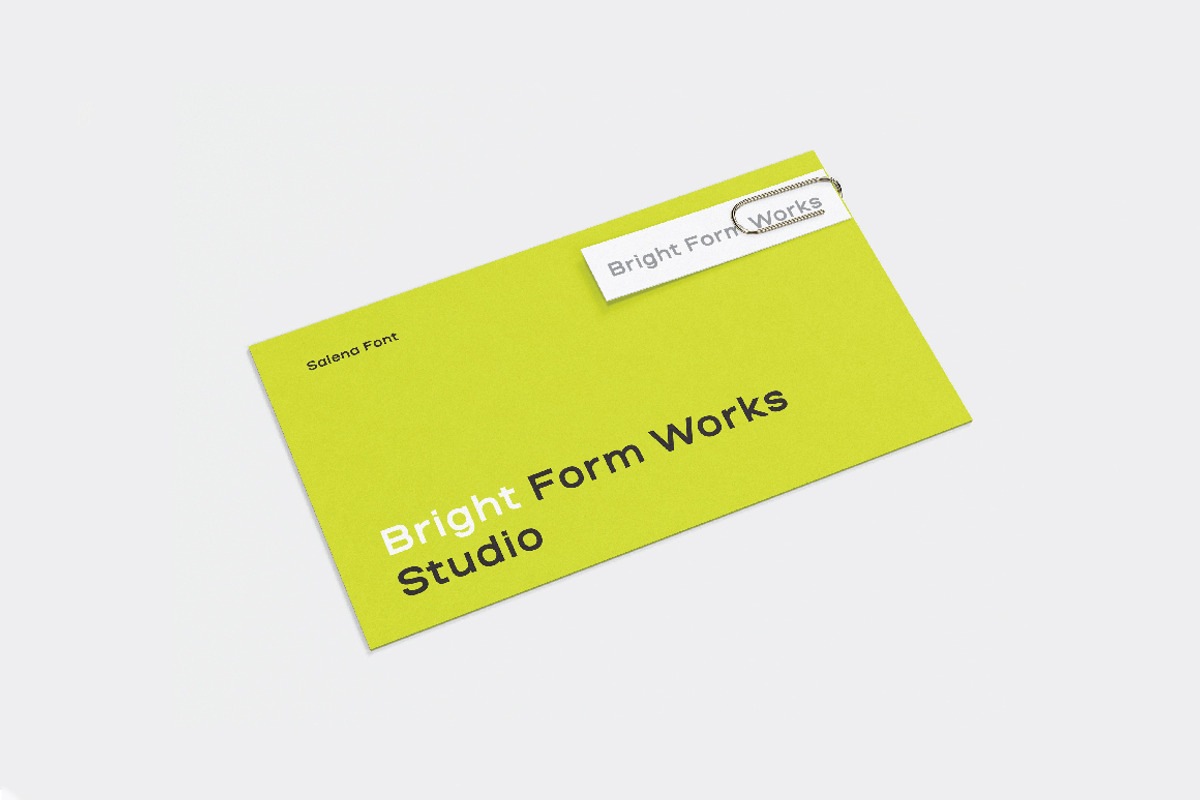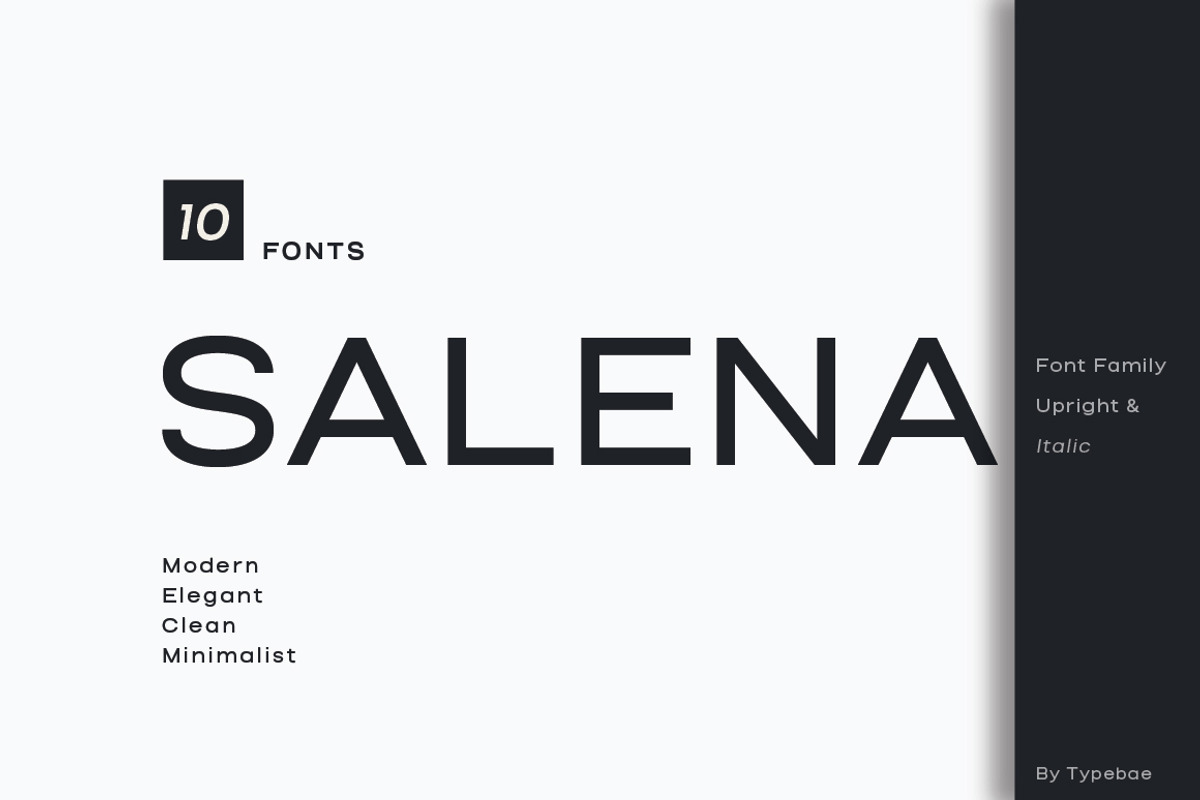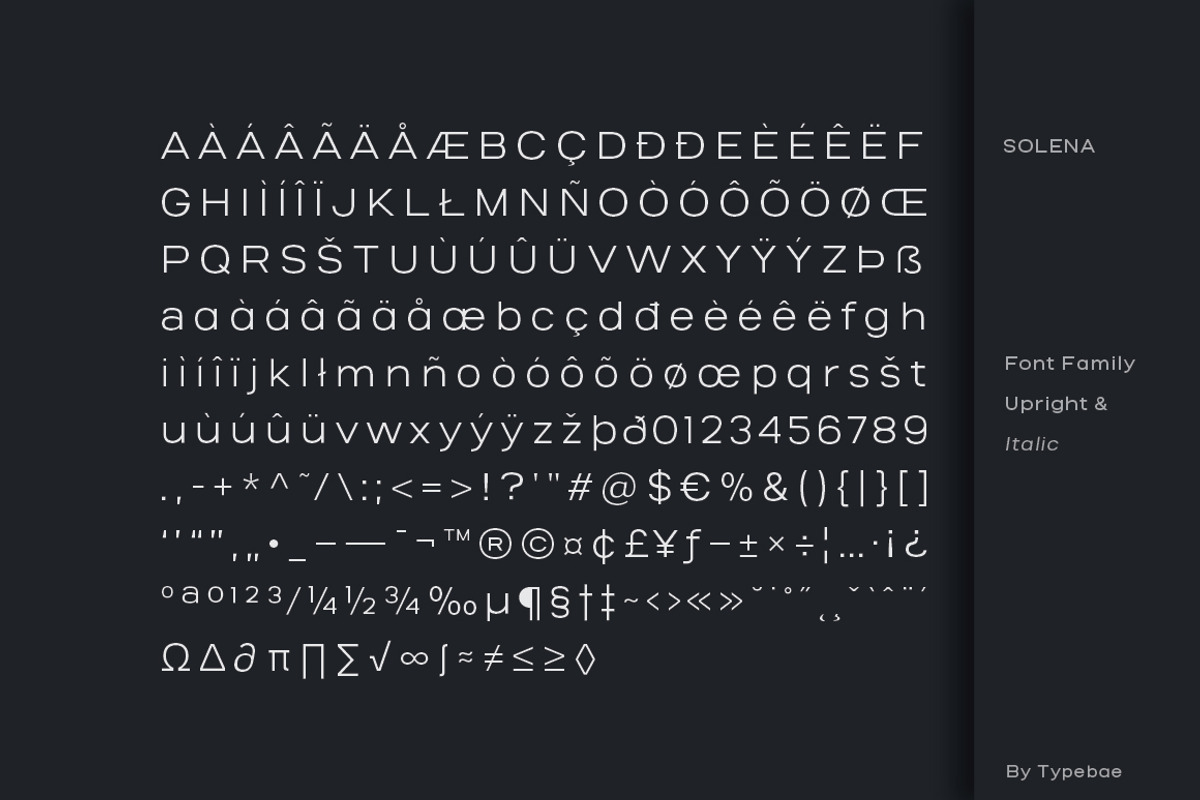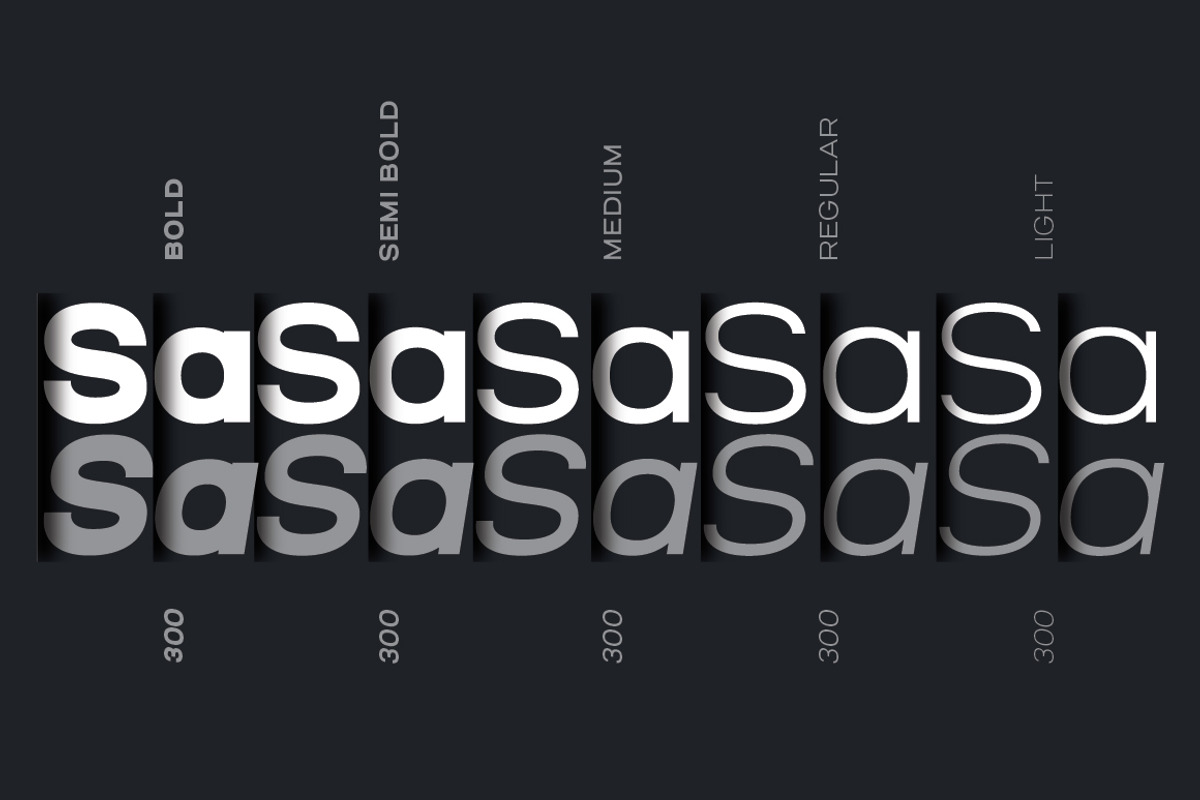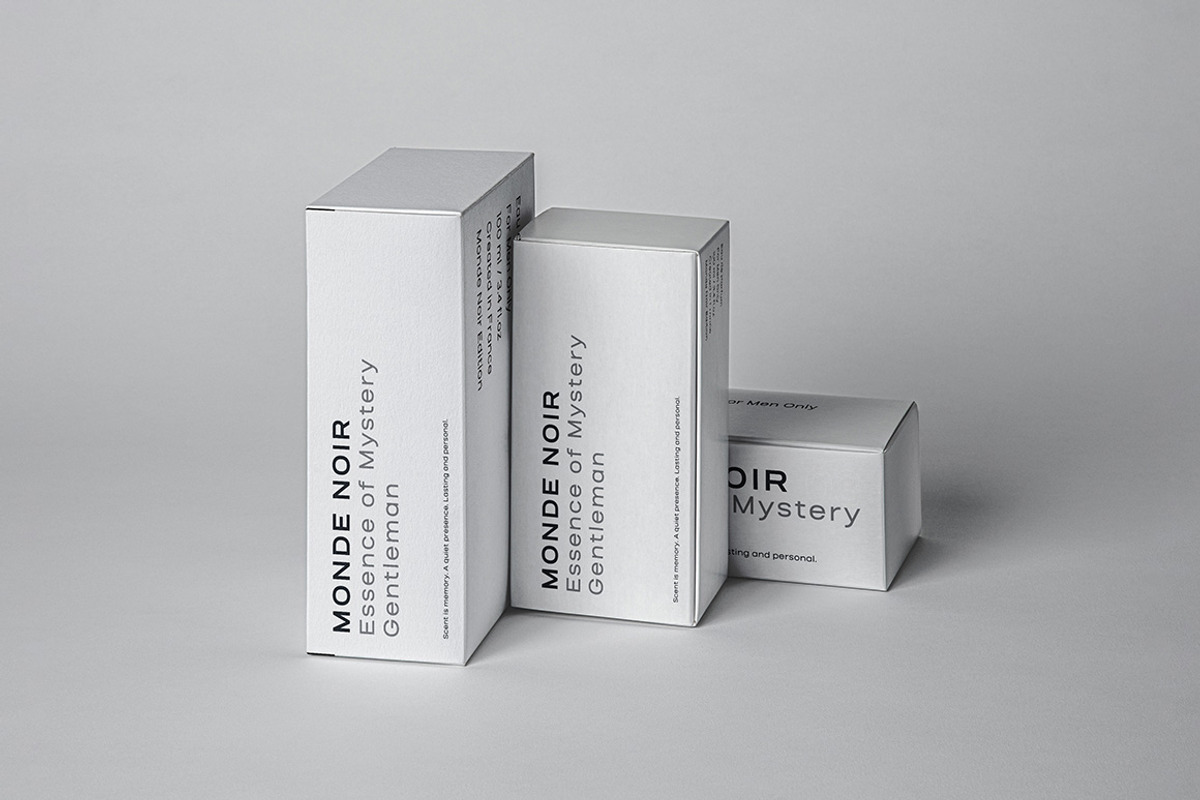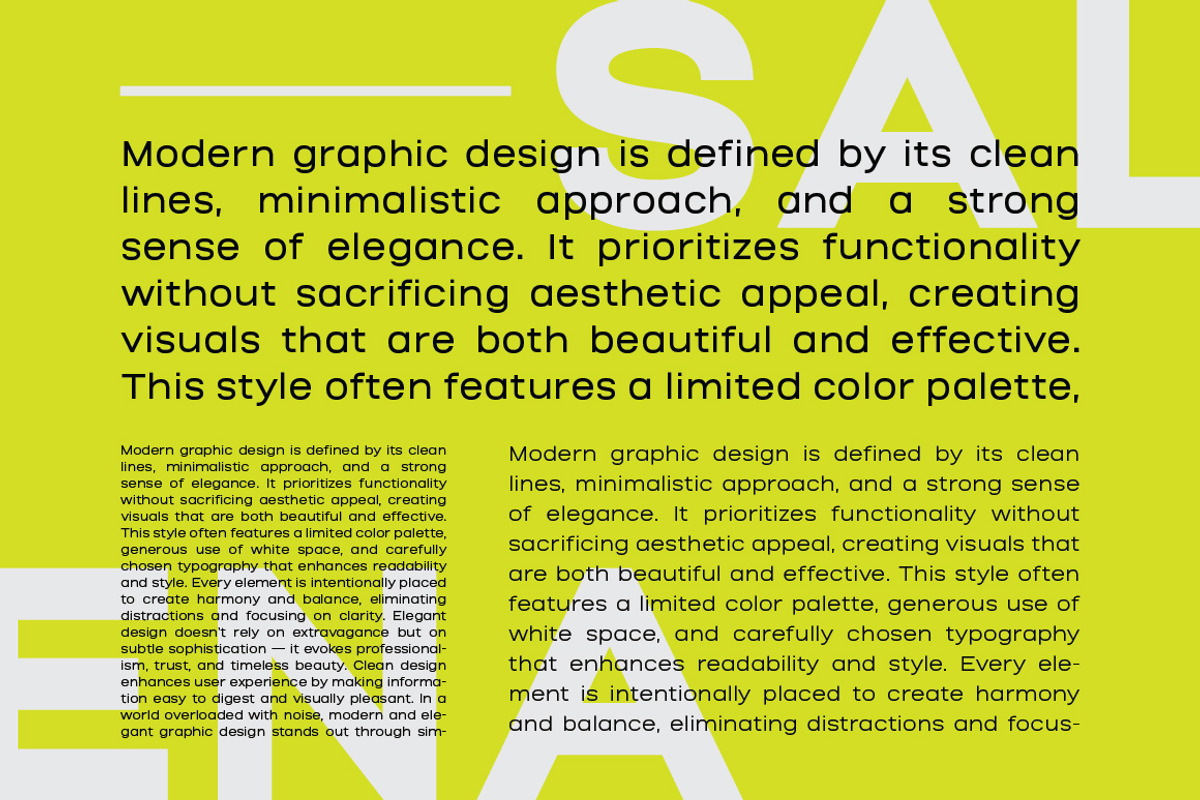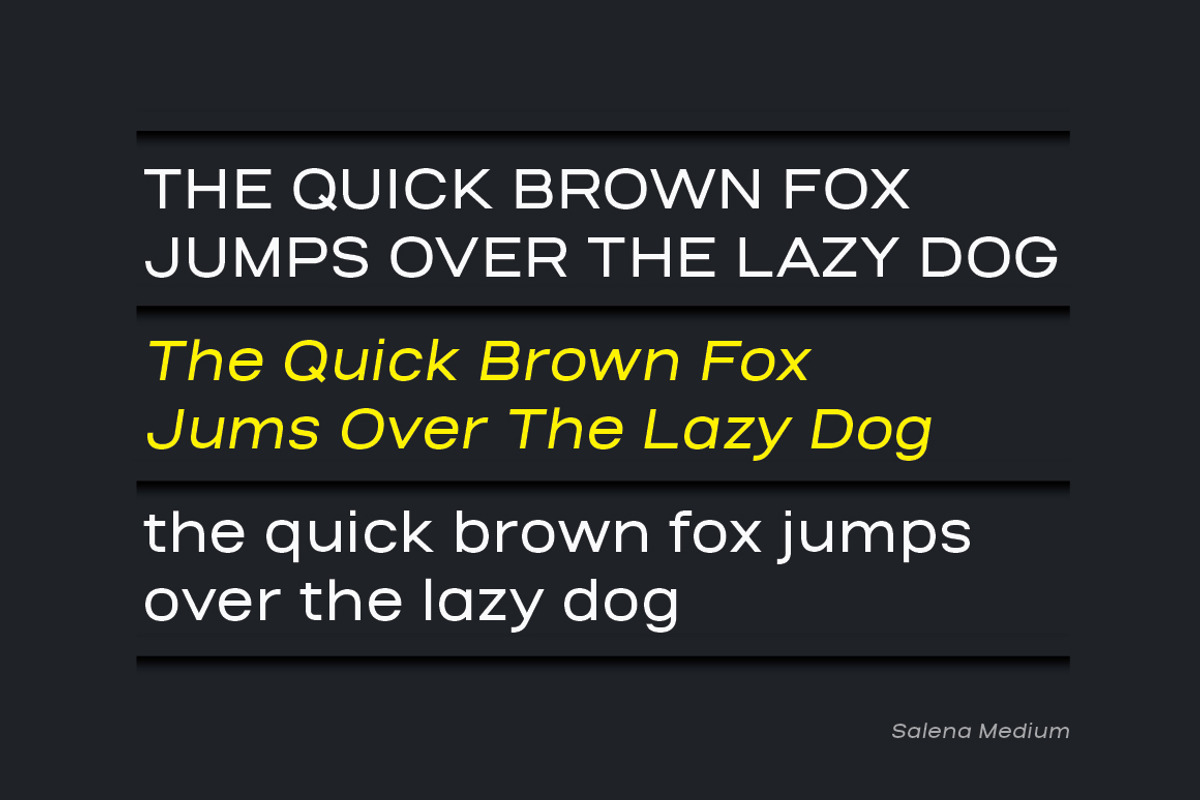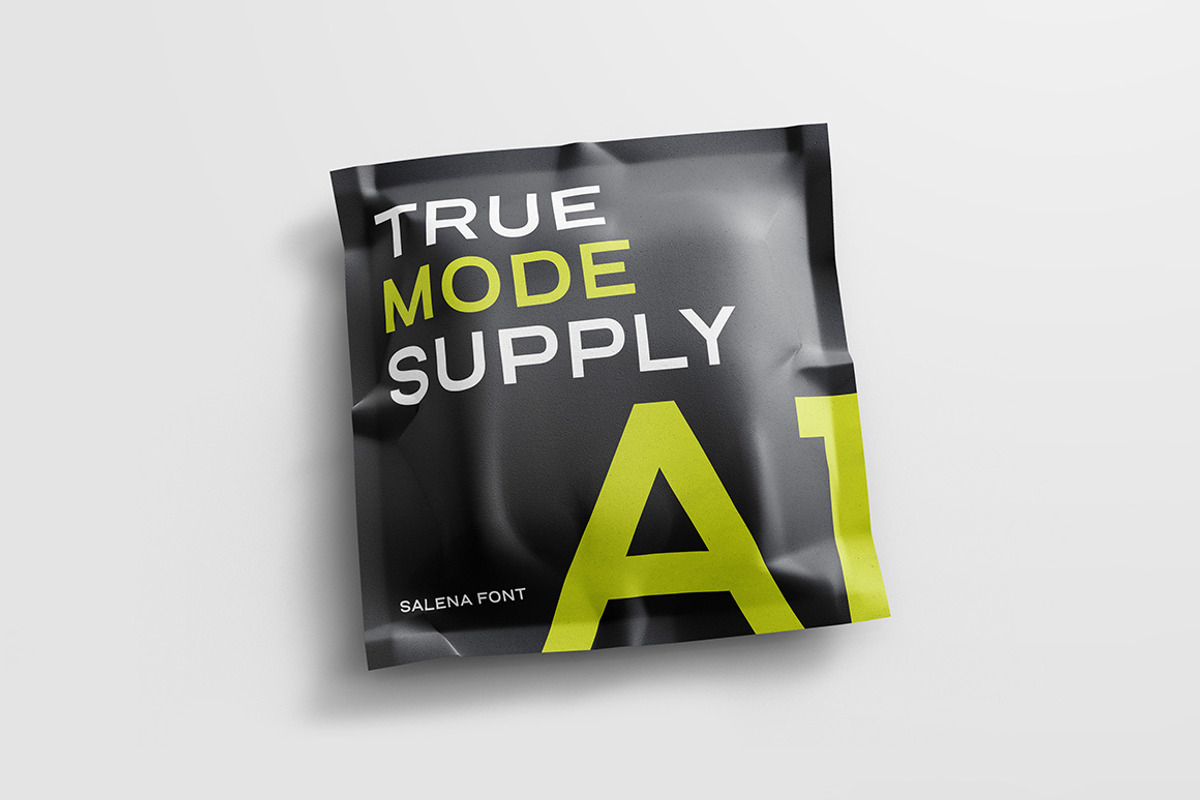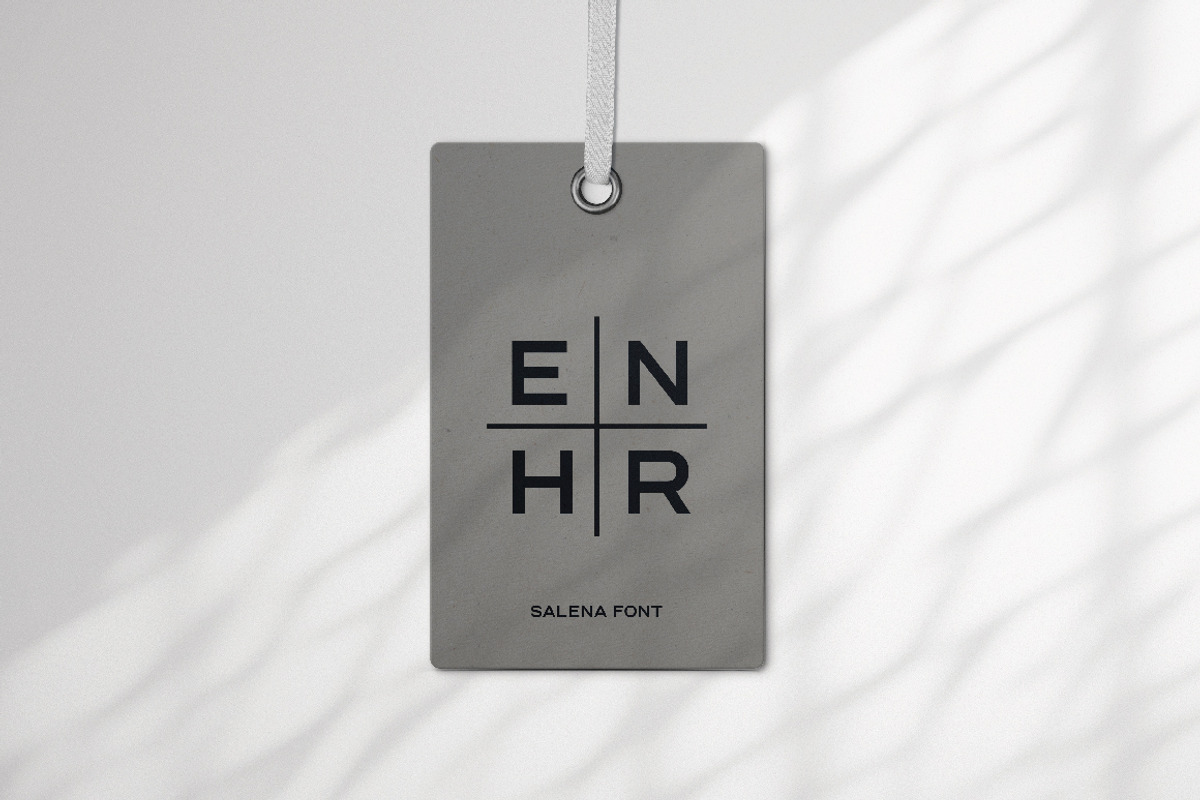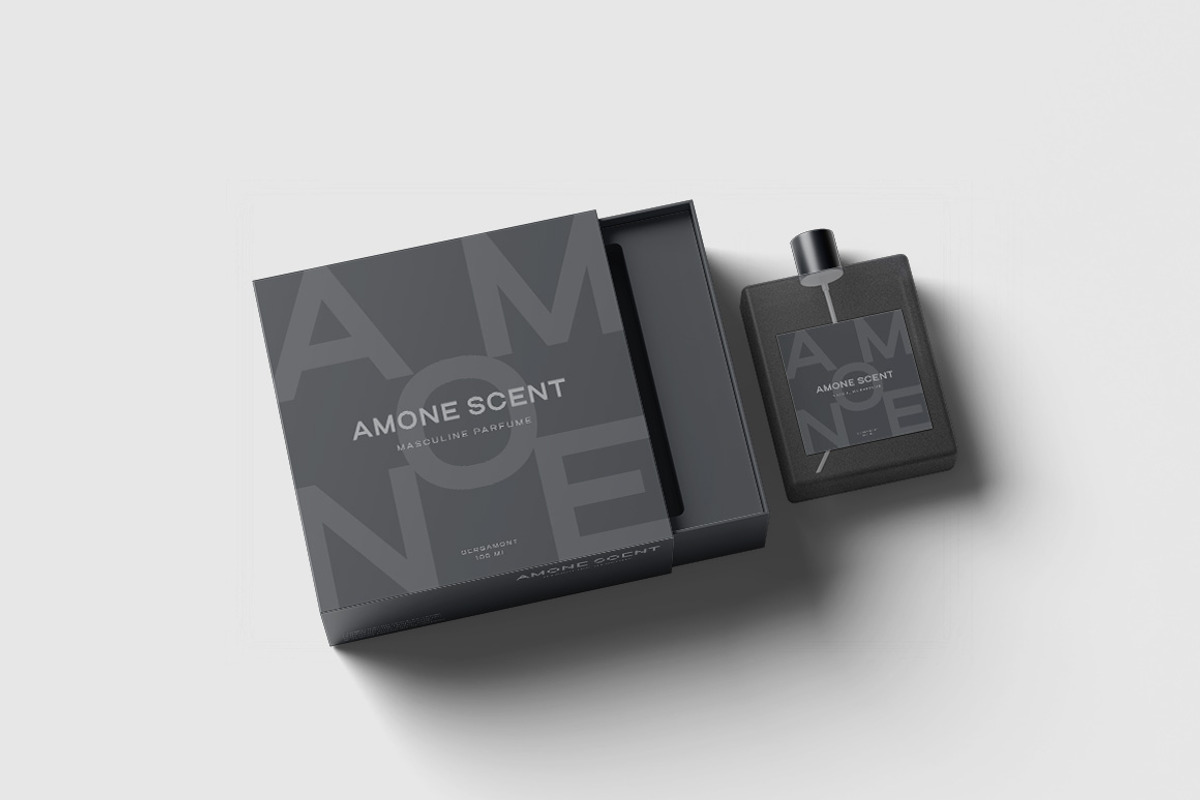
Salena – Minimalist Sans
Salena is a minimalist sans serif font family designed for modern elegance and visual clarity. Its clean lines and refined curves make it perfect for logotypes, branding, headlines, and editorial use. With a balanced structure and contemporary feel, Salena adds sophistication to any design while remaining versatile and highly legible. Ideal for designers seeking a timeless and sleek typographic solution.
- Salena Light, regular, Medium, Semibold, Bold & Italic Version
- Uppercase, Lowercase, Numeral & Punctuation
- PUA Encoded & Multilingual